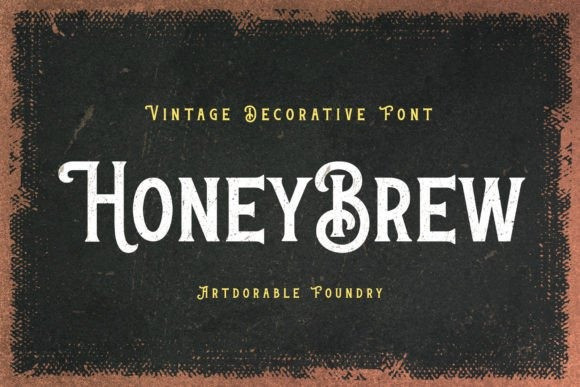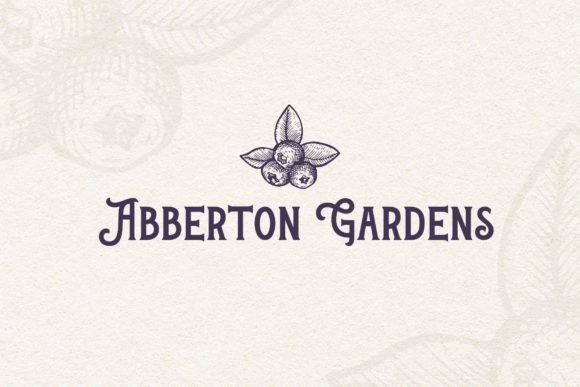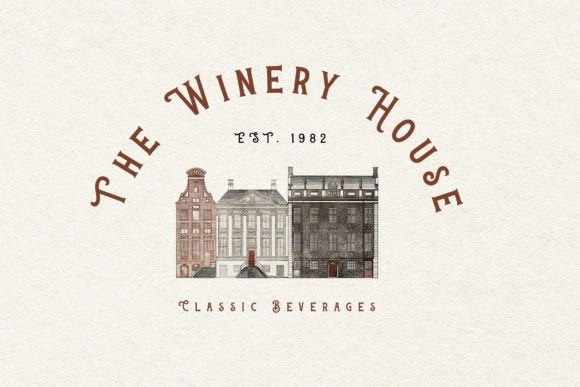
Honey Brew Font
Honey Brew is a classic, vintage-style display font. This font reads as strong, confident, and dynamic and can add tons of nostalgic character to your designs.